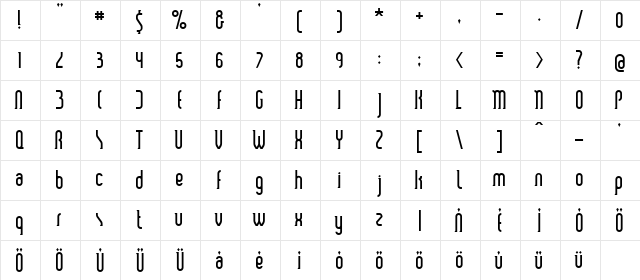
Smart and Sexy Regular Font Preview
Smart and Sexy Regular
Design Context for Smart and Sexy Typeface
Smart and Sexy offers clean, dependable letterforms without strong stylistic allegiance, making it a practical choice for designers who need flexibility.